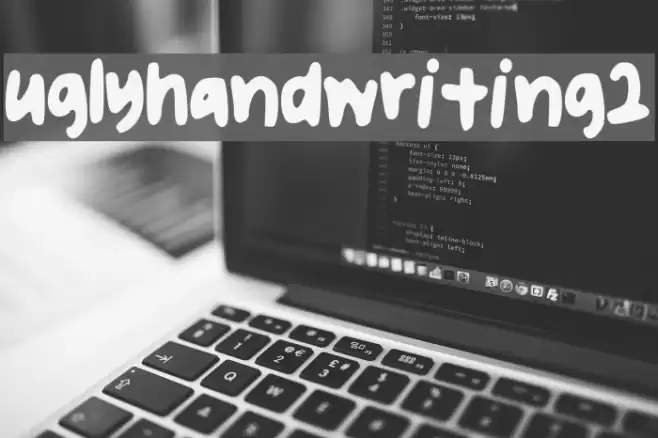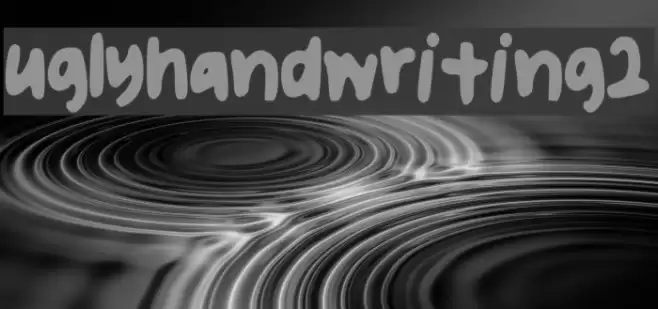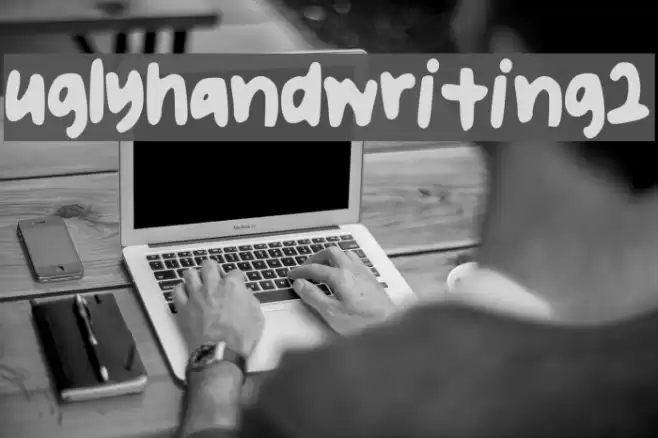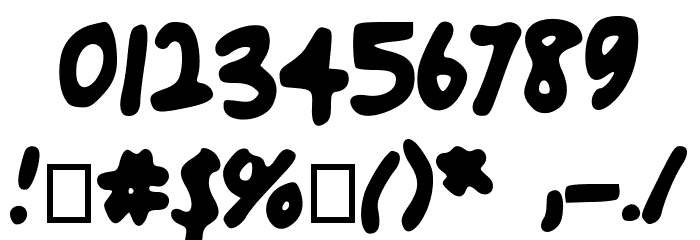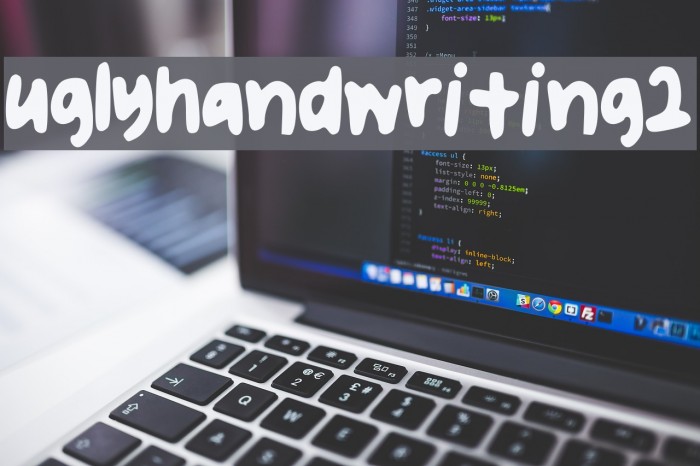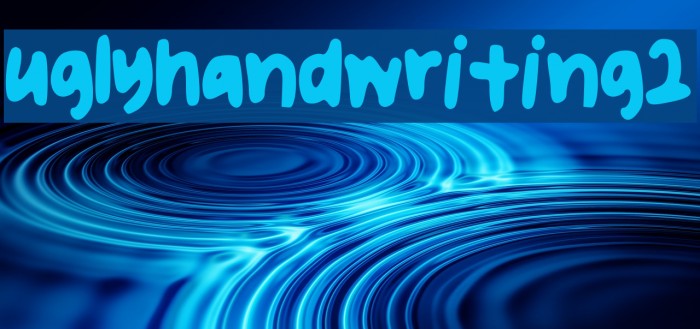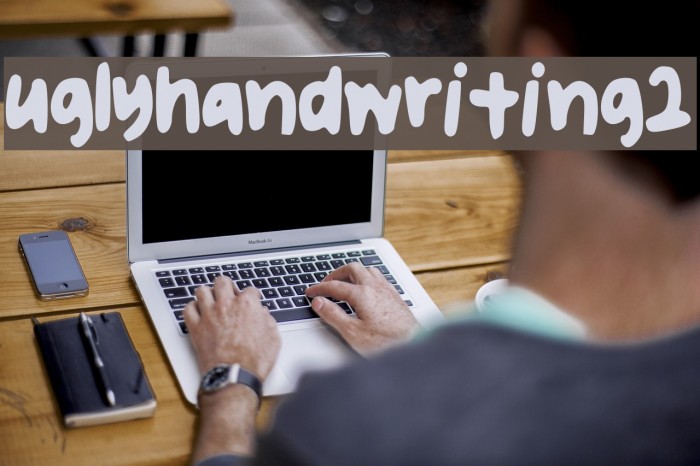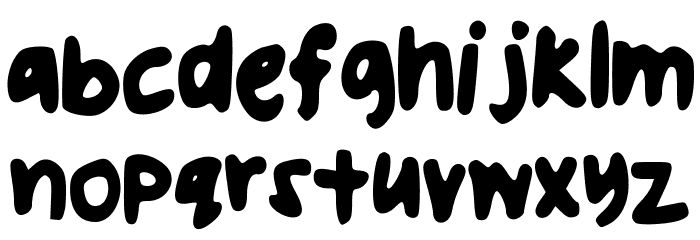
uglyhandwriting2
This font features a playful and bold handwritten style with exaggerated curves and rounded edges. The characters are thick and slightly irregular, giving it a casual and informal appearance. The letters are closely spaced, and the overall look is whimsical and energetic. It captures a sense of spontaneity and creativity, making it ideal for projects that require a fun and approachable aesthetic. The numbers and special characters maintain the same playful style, ensuring consistency across all elements.
A bold, playful handwritten font with rounded, irregular characters.
- Proposed Projects: Ideal for children's books, playful branding, casual invitations, and creative posters.
- Character Spacing: Tight
- Overall Style: Playful
- Use Case: Logos, Headlines, Posters